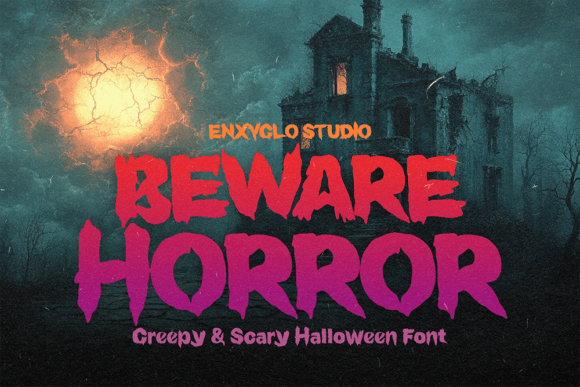
Beware Horror Font: Unleash the Terror in Your Designs
Are you tired of using the same old fonts in your designs? Do you want to add a touch of horror and suspense to your work? Look no further than the Beware Horror Font, a gripping typeface designed to evoke the shiver-inducing ambiance of classic horror. In this article, we’ll take a closer look at this unique font and how it can elevate your designs to the next level.
What is Beware Horror Font?
Beware Horror Font is a carefully crafted typeface designed to masterfully concoct a spooky atmosphere, perfect for spine-chilling headlines, Halloween signage, or any design project that requires a good dose of the macabre. This font is tailor-made for designers and crafters who want to add a touch of terror to their work, making it an ideal choice for Halloween party invitations, horror film promotions, and other projects that require a bold and eerie aesthetic.
Unique Letterforms and Authenticity
The Beware Horror Font features disturbingly unique letterforms that lend an arresting authenticity to your designs. Each letter is carefully crafted to create a sense of unease and tension, making it perfect for projects that require a bold and eerie aesthetic. The font’s unique design ensures that your work will stand out from the crowd, grabbing the attention of your audience and refusing to let go.
Balancing Terror with Readability
One of the standout features of the Beware Horror Font is its ability to balance the peculiar aesthetic of terror with effortless readability. This comprehensive typeface ensures that your eerie message will be absorbed and not merely observed, making it perfect for designers who want to create a lasting impression on their audience. Whether you’re designing a Halloween party invitation or a horror film promotion, the Beware Horror Font is sure to deliver.
The Beware Horror Font is perfect for designers and crafters who want to add a touch of horror and suspense to their work. Whether you’re creating Halloween party invitations, horror film promotions, or other spooky designs, this font is sure to deliver. With its unique letterforms and effortless readability, the Beware Horror Font is an ideal choice for anyone who wants to create a bold and eerie aesthetic.
Use Cases for Beware Horror Font
The Beware Horror Font is versatile and can be used in a variety of design projects, including:
- Halloween party invitations
- Horror film promotions
- Spine-chilling headlines
- Halloween signage
- Any design project that requires a good dose of the macabre
Why Choose Beware Horror Font?
So why choose the Beware Horror Font over other fonts? Here are just a few reasons:
- Unique and disturbingly authentic letterforms
- Effortless readability
- Perfect for designers and crafters who want to add a touch of horror and suspense to their work
- Versatile and can be used in a variety of design projects
| Font Name | Beware Horror Font |
| Author | Enxyclo |